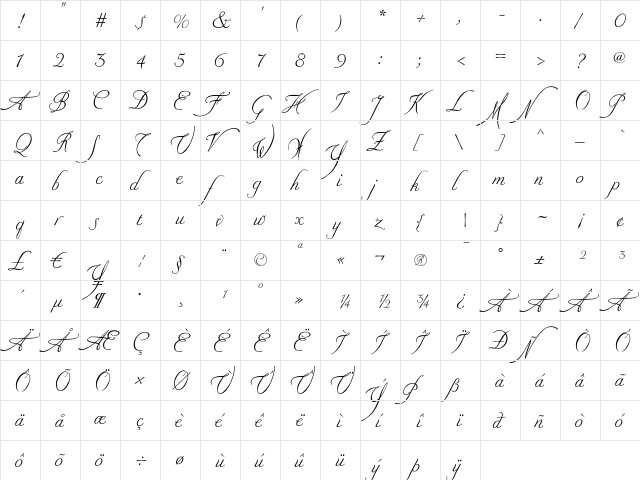
Nadine Script Normal Regular
| Foundry | Gert Wiescher |
| Designer | Gert Wiescher |
Design Context for Nadine Script Normal Typeface
Nadine Script Normal brings a calligraphic fluidity to the page — its connecting strokes and expressive curves give it an unmistakably human quality.
Font Pairing: Combine Nadine Script Normal with a simple geometric sans for maximum contrast — the tension between flowing curves and clean structure is a classic typographic pairing.
Pro Tip: Pair Nadine Script Normal with a clean sans-serif for supporting text. The contrast between fluid script and geometric structure creates an elegant typographic hierarchy.